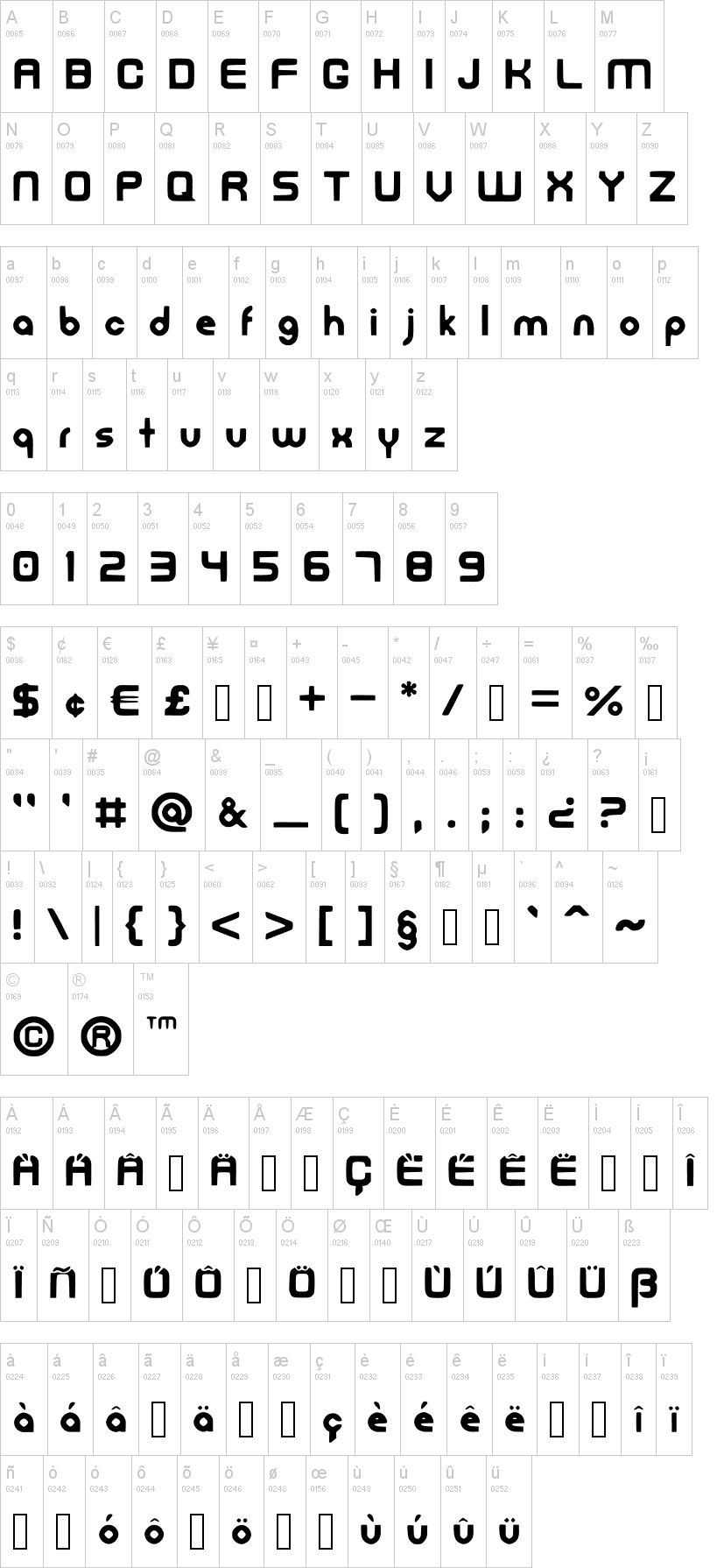
Шрифт FreedanFont
This font is a rounded, simplistic font. It may be used for a variety of purposes, and is available for non - commercial use. Don't forget to check out my website @ FreedanStudios.com!